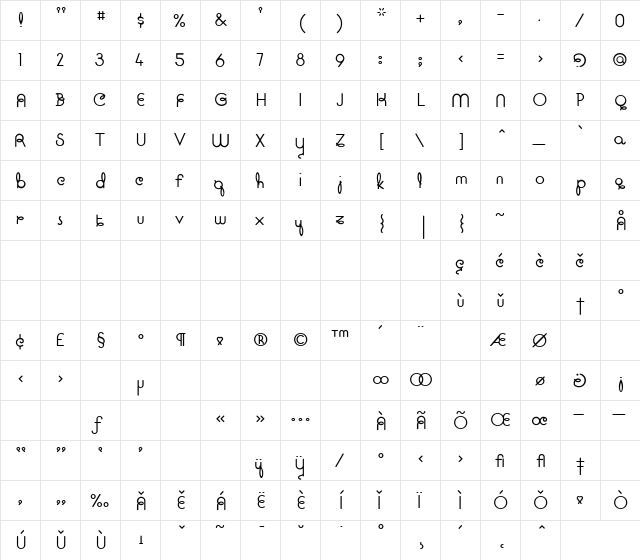
Pavadee Regular
| Foundry | C) Tom Tor, Designed by Tom Tor |
| Designer | Tom Tor |
Design Context for Pavadee Typeface
Pavadee offers clean, dependable letterforms without strong stylistic allegiance, making it a practical choice for designers who need flexibility.